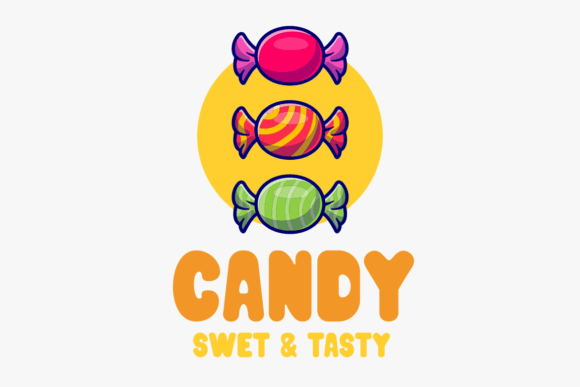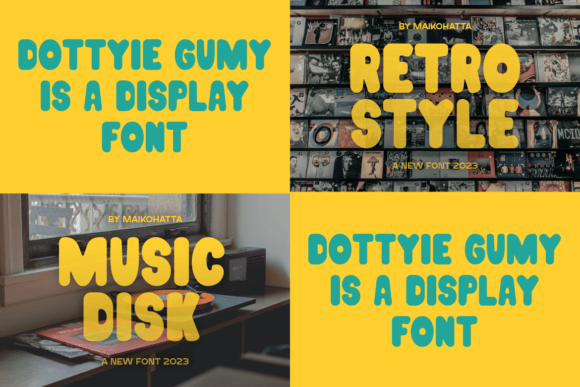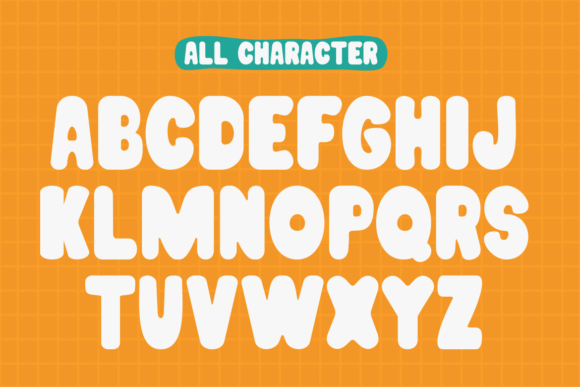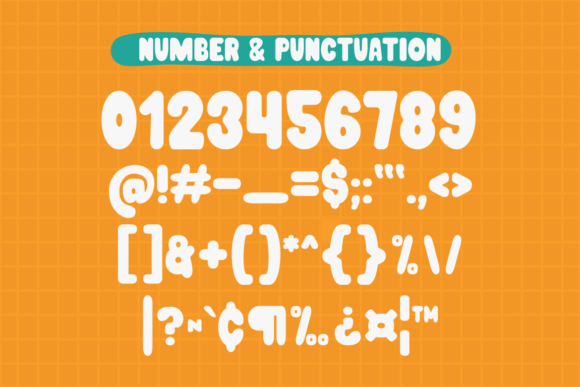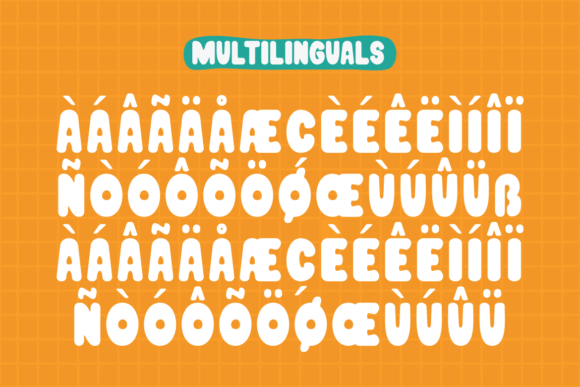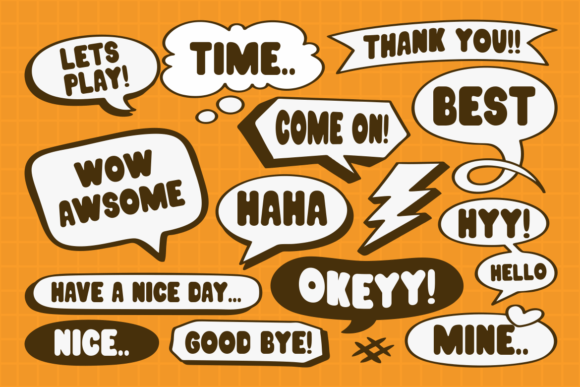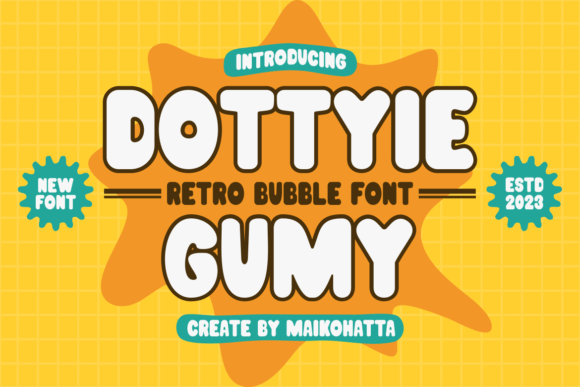
Dottyie Gumy Font: The Perfect Choice for Playful and Youthful Designs
The Dottyie Gumy font has gained popularity among designers and crafters due to its unique and charming features. This font boasts round and wide letter shapes with curved corners, giving it a soft and friendly impression. The distinctive characteristics of Dottyie Gumy make it an ideal choice for designs aimed at children or those with a playful nature, as it conveys a more youthful and cheerful feel.
Design Characteristics of Dottyie Gumy Font
One of the standout features of the Dottyie Gumy font is its rounded and wide letter shapes. The curved corners of each letter give it a smooth and approachable appearance, making it perfect for designs that require a friendly and approachable tone. The font’s design characteristics make it an excellent choice for a variety of applications, including children’s books, educational materials, and playful branding.
Why Choose Dottyie Gumy Font for Your Design?
There are several reasons why designers and crafters choose the Dottyie Gumy font for their projects. Some of the key benefits include:
- Playful and youthful feel: The font’s unique design gives it a playful and youthful feel, making it perfect for designs aimed at children or young adults.
- Soft and friendly impression: The rounded letter shapes and curved corners give the font a soft and friendly impression, making it ideal for designs that require a approachable tone.
- Versatility: The Dottyie Gumy font can be used for a variety of applications, including digital and print designs.
Best Uses for Dottyie Gumy Font
The Dottyie Gumy font is versatile and can be used for a range of applications. Some of the best uses for this font include:
- Children’s books and educational materials: The font’s playful and youthful feel makes it perfect for children’s books and educational materials.
- Playful branding: The font’s unique design makes it an excellent choice for playful branding, including logos and marketing materials.
- Digital designs: The font can be used for digital designs, including social media graphics, blog posts, and website headers.
- Crafting and DIY projects: The font’s friendly and approachable tone makes it perfect for crafting and DIY projects, including handmade cards and invitations.
Tips for Using Dottyie Gumy Font Effectively
To get the most out of the Dottyie Gumy font, here are some tips for using it effectively:
- Use it for headlines and titles: The font’s playful and youthful feel makes it perfect for headlines and titles.
- Pair it with other fonts: The Dottyie Gumy font can be paired with other fonts to create a unique and visually appealing design.
- Experiment with colors and textures: The font’s friendly and approachable tone makes it perfect for experimenting with colors and textures.
The Dottyie Gumy font is a unique and charming font that is perfect for designers and crafters looking to add a playful and youthful touch to their projects. With its rounded and wide letter shapes and curved corners, this font conveys a soft and friendly impression that is ideal for designs aimed at children or those with a playful nature. By following the tips outlined above, designers and crafters can use the Dottyie Gumy font effectively and create visually appealing designs that capture the attention of their audience.